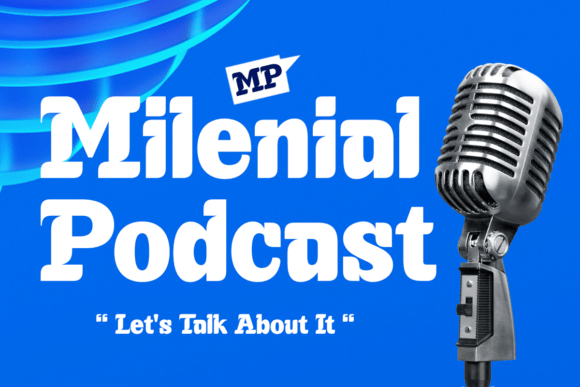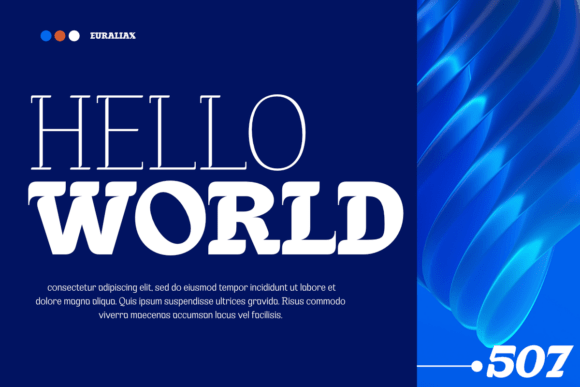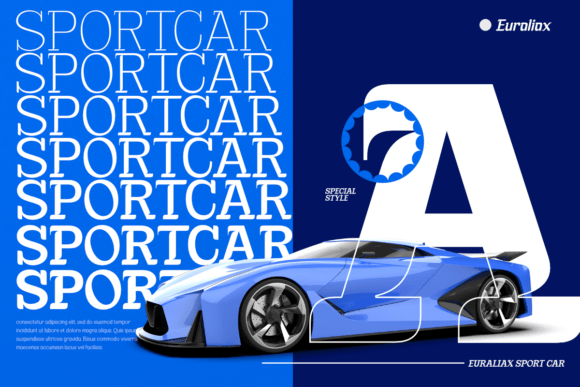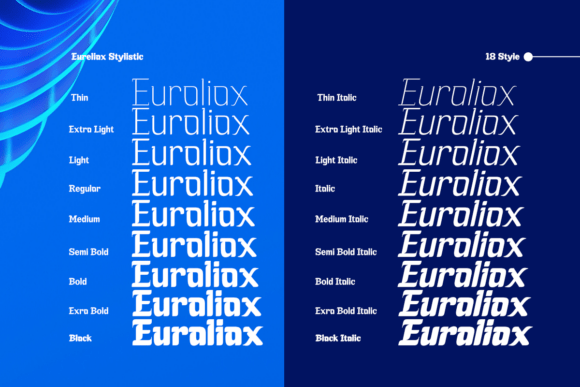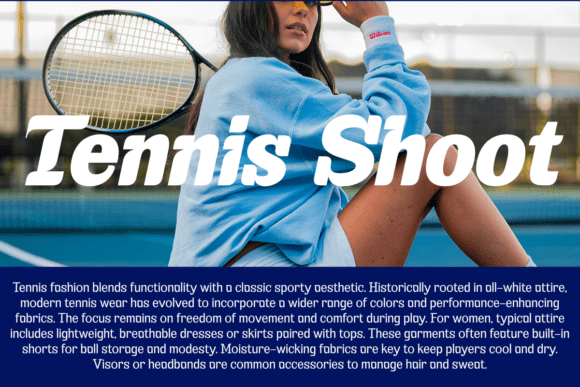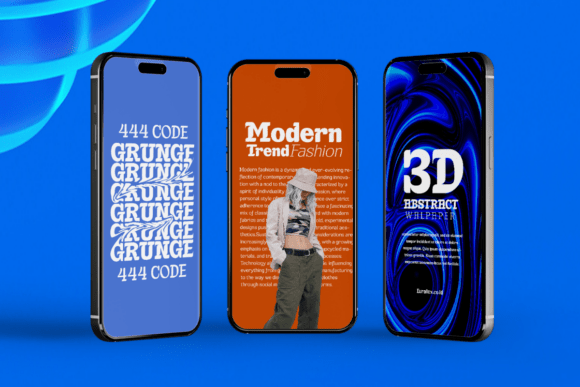
Designing with Distinction: The Euraliax Font
Have you ever been stuck on a design project, struggling to find the perfect font that captures the essence of your message? You know, that moment when the words on the page come alive, and the entire atmosphere shifts. It’s a magical feeling, isn’t it?
| 👤 Author | Differentialtype |
For designers seeking to create a lasting impression, look no further than the Euraliax Font. This display font boasts a unique blend of classic elegance and modern sophistication, making it the perfect choice for a wide range of design projects. With 18 styles at your disposal, you’ll have the flexibility to bring your vision to life in a way that’s both authentic and classy.
Whether you’re designing posters, book covers, or logos, the Euraliax Font is a valuable asset that will elevate your typography to new heights. Its clarity and readability remain consistent across all weights, ensuring that your message is conveyed with precision and style.
Euraliax Font Key Features
- Font Family: Euraliax comes in multiple font weights, from Light to Black, offering a wide range of design options.
- Unique Characteristics: Euraliax features a unique blend of modern and elegant styles, making it suitable for a wide range of design applications, from branding to publishing.
- Character Set: Includes a comprehensive character set, covering Latin, Cyrillic, and Greek alphabets, as well as punctuation and symbols.
Euraliax Font Review
Overall, I think Euraliax is a solid choice for any project. Here are some things that I like about it: ✨
- Unique blend of modern and vintage vibes – it’s perfect for projects that need a touch of sophistication.
- Well-designed letterforms that are clear and easy to read, even at smaller sizes.
- Great for use in headings and titles, where it really shines.
However, there are a few things that might give you pause: ⚠️
- Lack of versatility – it’s a fairly narrow font family, so you might find yourself wishing for more weights or styles.
- Not ideal for large blocks of text – it can start to feel a bit monotonous and difficult to read.
Overall, I’d give Euraliax a solid 4 out of 5 stars. It’s a great choice for projects where you want to make a statement, but it might not be the best fit for every situation. If you’re looking for a unique, stylish font that’s perfect for headings and titles, Euraliax is definitely worth considering.
Some tips for getting the most out of the Euraliax font include:
- Using it in combination with bold and italic styles to add emphasis and visual interest.
- Pairing it with bright colors and geometric shapes to create a modern and playful look.
- Using it in headings and titles to create a clean and sophisticated look.
- Applying it to body text to create a clear and readable design.